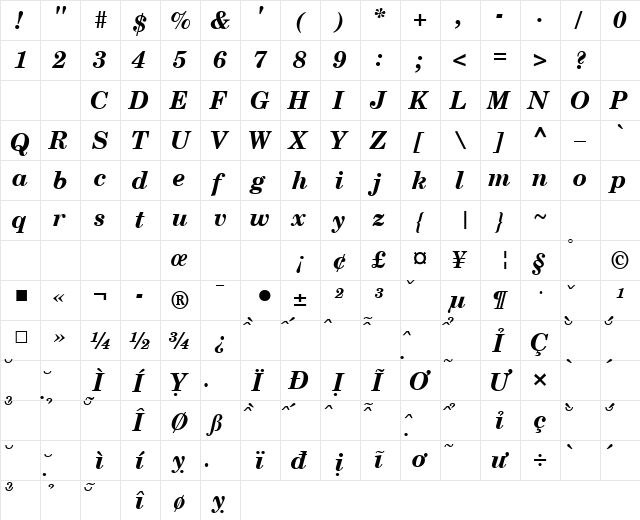
VNI-Centur Bold-Italic Font Preview
Design Context for VNI-Centur Typeface
VNI-Centur takes a measured approach to typography — its balanced proportions and neutral character make it a reliable workhorse for both digital and print work. Its italic angle brings a sense of urgency and motion to the letterforms. The heavy weight commands attention and anchors typographic hierarchies.
Pro Tip: Try VNI-Centur for annotation and caption copy alongside an upright companion — the contrast in angle creates a dynamic but ordered typographic system.